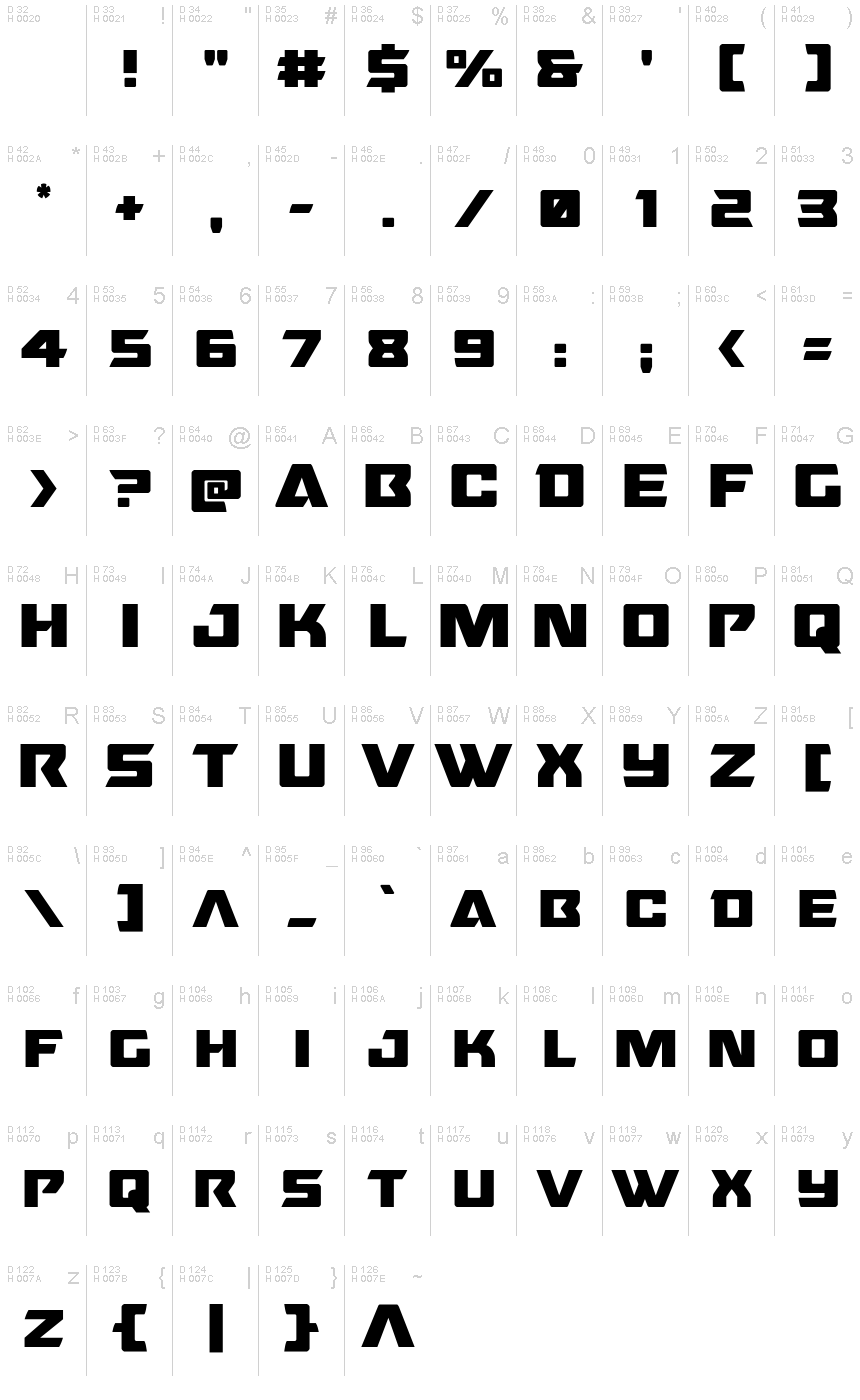
Oceanic Drift Regular
Oceanic Drift is a bold, futuristic display font that evokes a sense of movement and fluidity. Designed by Daniel Zadorozny, this expanded typeface boasts a captivating aesthetic that seamlessly blends modern and organic elements.
The striking, flowing letterforms create a dynamic visual rhythm, making Oceanic Drift an ideal choice for headers, logos, and attention-grabbing design applications. Its distinctive style lends itself well to a wide range of contexts, from sci-fi-inspired branding to sleek, contemporary editorial layouts.
Oceanic Drift's versatility and eye-catching presence make it a compelling option for designers seeking to add a touch of distinctive flair to their projects.